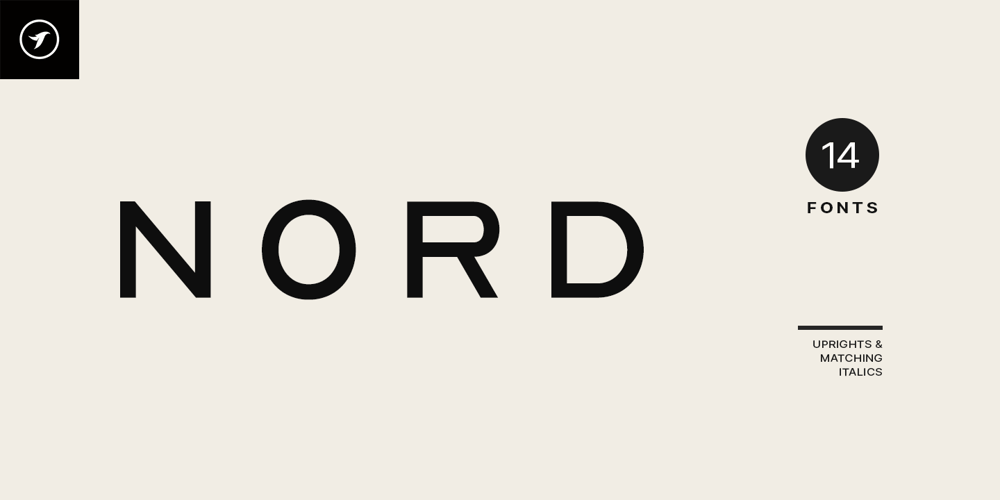
Nord Display Font Family was designed by Jean Johnson and published by Designova. Nord Display contains 14 styles and family package options. ABOUT THE FONT FAMILY:NORD is a minimal & modern Sans Serif / Display / All-Caps font family that stands out from the crowd. NORD will be best suited for creating logotypes, branding, headlines, corporate identities, and marketing materials for web & print as well as any type of minimal designs.Thanks to its efficient letter spacing options, this versatile font offers endless possibilities for modern and minimalist designs, including logos, headlines, and identities. Please see the included demo graphics to get an idea about the capability of this typeface when used for branding and marketing material design.NORD font family comes with 14 fonts, including 7 upright weights (THIN / LIGHT / BOOK / REGULAR / MEDIUM / BOLD / BLACK) as well as Italic versions of all 7 weights. Each weight includes extended language support including Western European & Central European sets. A total of 276 glyphs are included FEATURES:NORD font family includes a collection of 14 fonts in total, with seven upright weights and Italic equivalents of all seven weights as follows: Thin Thin Italic Light Light Italic Book Book Italic Regular Italic Medium Medium Italic Bold Bold Italic Black Black Italic 275 GLYPHS INCLUDED:Handcrafted and designed with powerful OpenType features in mind, each weight includes extended language support with Western European, Central European, and South Eastern European sets. A total of 275 glyphs are available.EXTENSIVE LANGUAGE SUPPORT:Afrikaans • Albanian • Asu • Basque • Bemba • Bena • Catalan • Cebuano • Chiga • Colognian • Cornish • Corsican • Danish • Embu • English • Estonian • Filipino • Finnish • French • Friulian • Galician • German • Gusii • Ido • Indonesian • Interlingua • Interlingue • Irish • Italian • Javanese • Jju • Kabuverdianu • Kalaallisut • Kalenjin • Kamba • Kikuyu • Kinyarwanda • Kurdish • Ligurian • Lojban • Lombard • Low German • Luo • Luxembourgish • Luyia • Machame • Makhuwa • Makhuwa-Meetto • Makonde • Malagasy • Malay • Manx • Māori • Meru • Morisyen • North Ndebele • Northern Sotho • Norwegian Bokmål • Norwegian Nynorsk • Nyanja • Nyankole • Occitan • Oromo • Portuguese • Rejang • Romansh • Rombo • Rundi • Rwa • Samburu • Sango • Sangu • Sardinian • Scottish Gaelic • Sena • Shambala • Shona • Slovenian • Soga • Somali • South Ndebele • Southern Sotho • Spanish • Sundanese • Swahili • Swati • Swedish • Swiss German • Taita • Taroko • Teso • Tsonga • Tswana • Turkmen • Vunjo • Walloon • Walser • Wolastoqey • Xhosa • Zhuang • Zulu